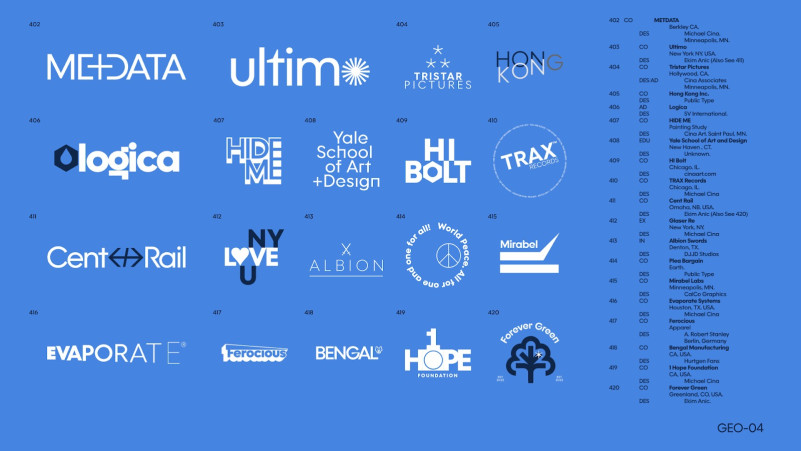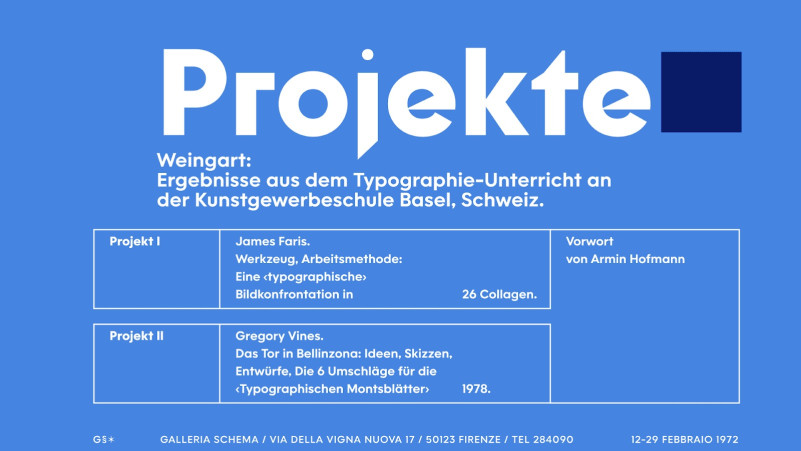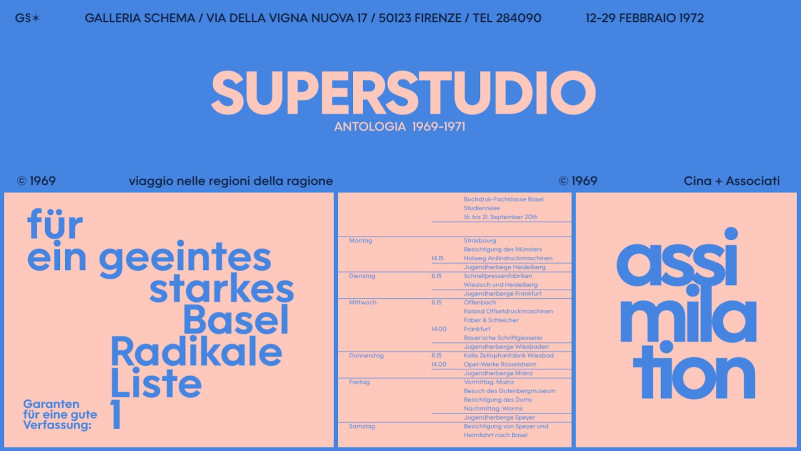
Cina GEO Font Family
Cina GEO Sans Serif Font is a complete humanist sans and serif font family crafted & designed by Michael Cina. Cina GEO emphasize expressive and fun characters that visualized by it’s letterforms. The font performs well for mid-length text. Cina GEO is a neutral and clean font but it has friendly and modern design characteristics.